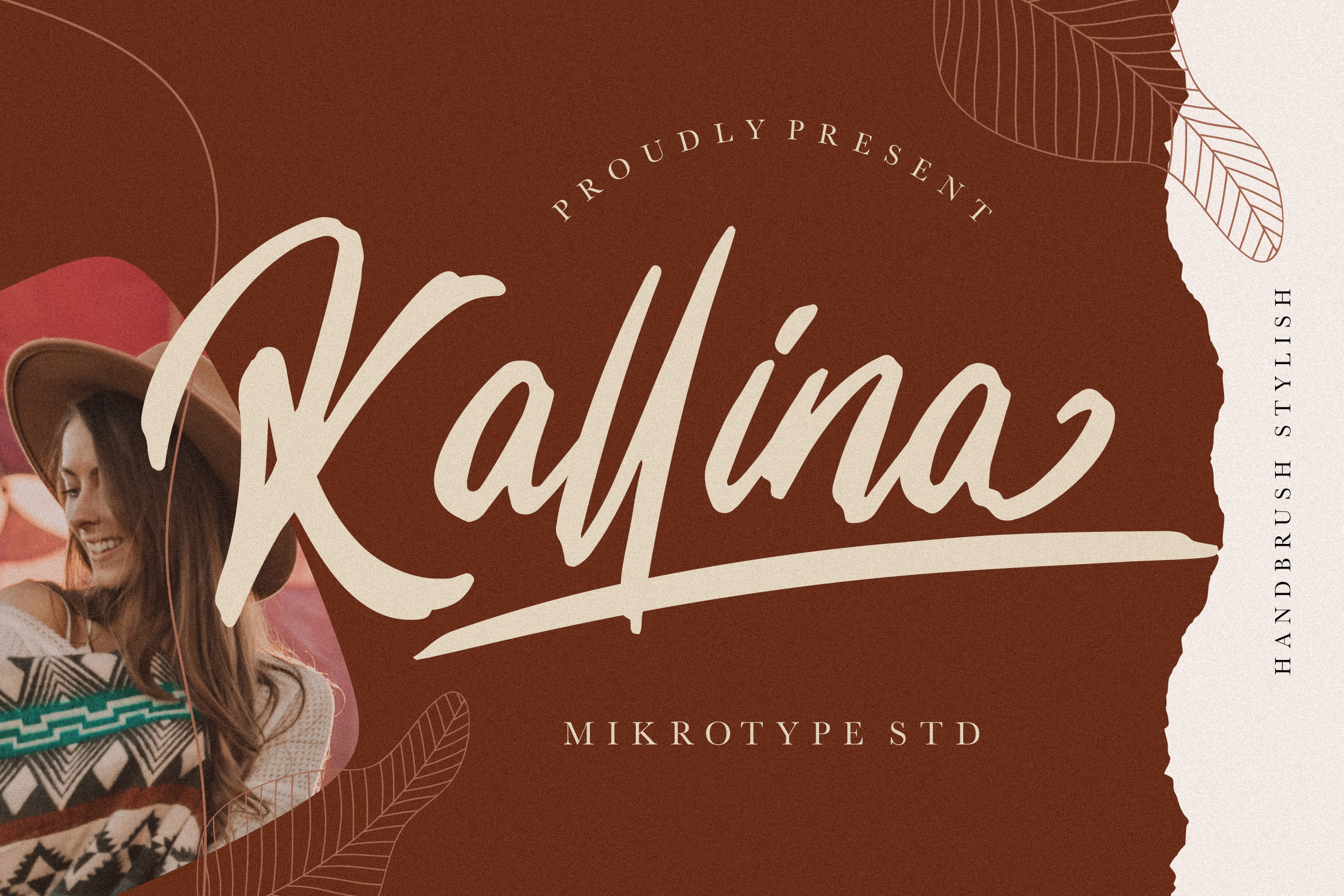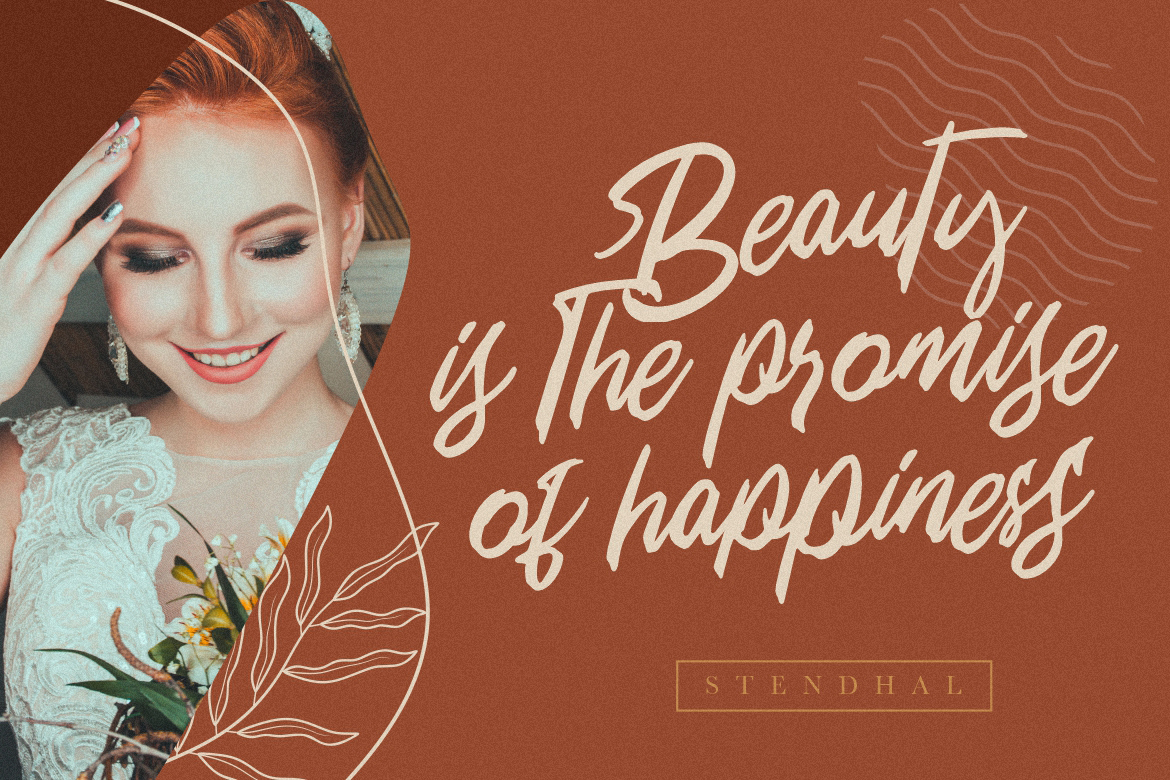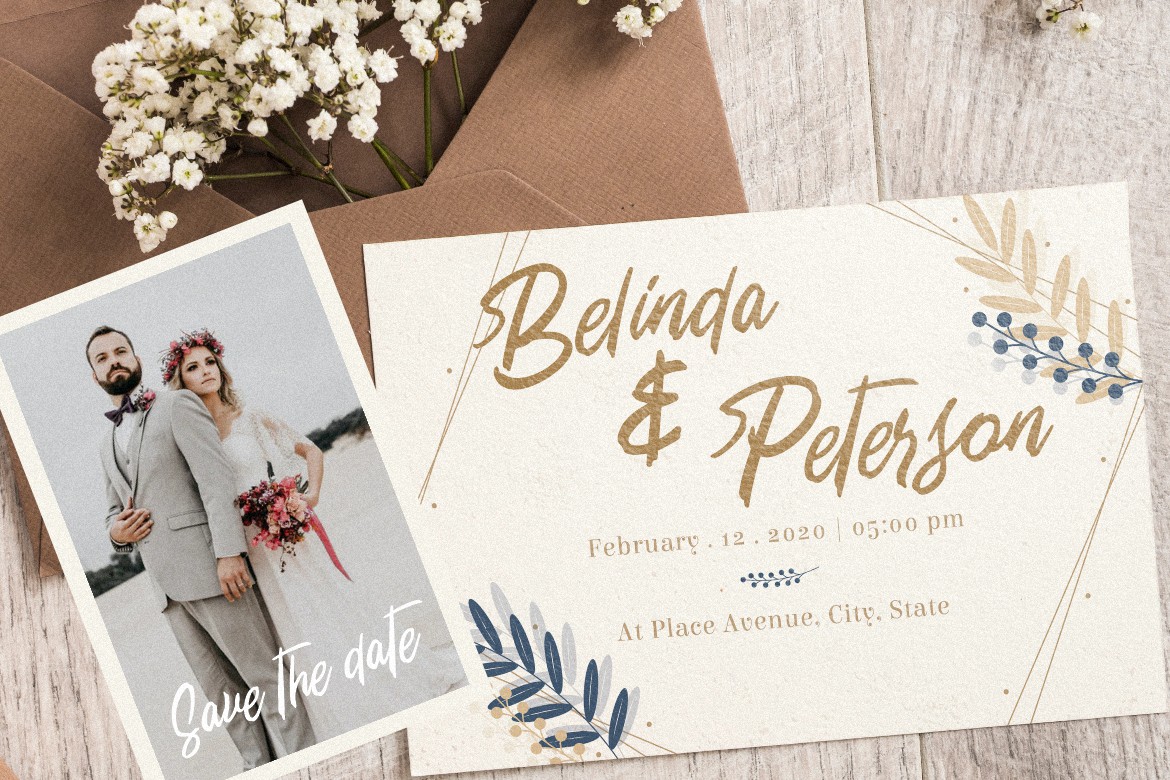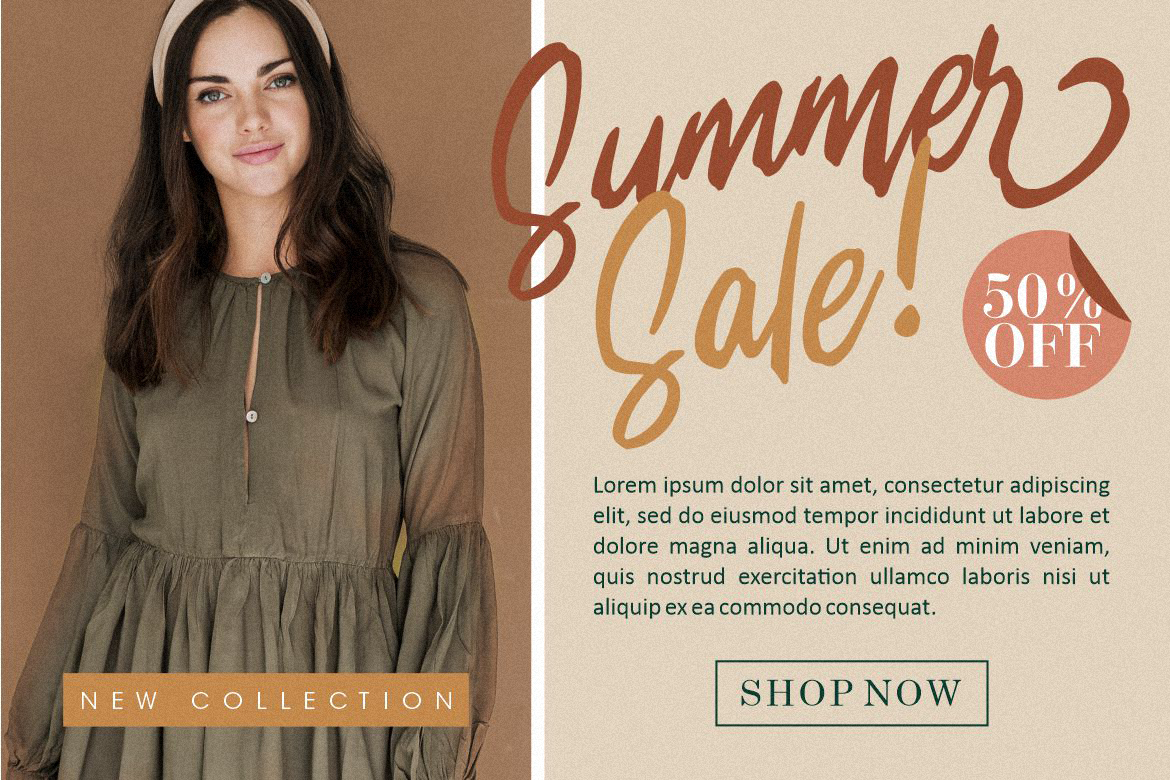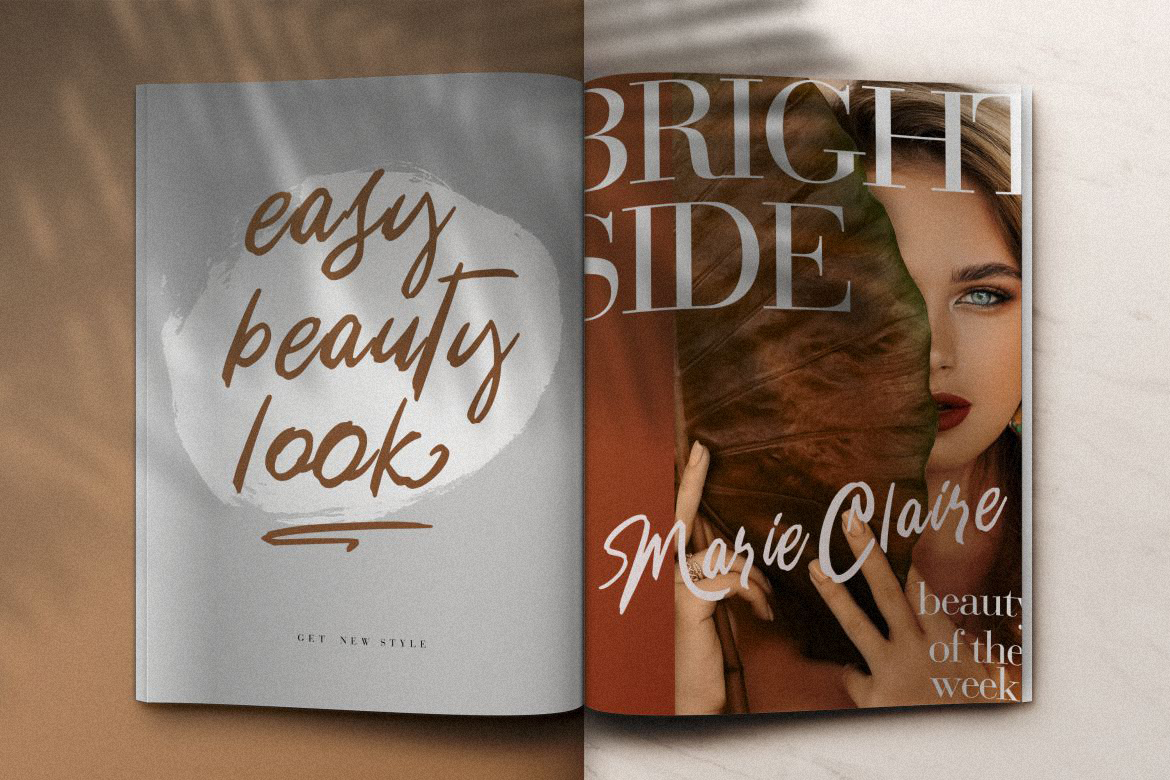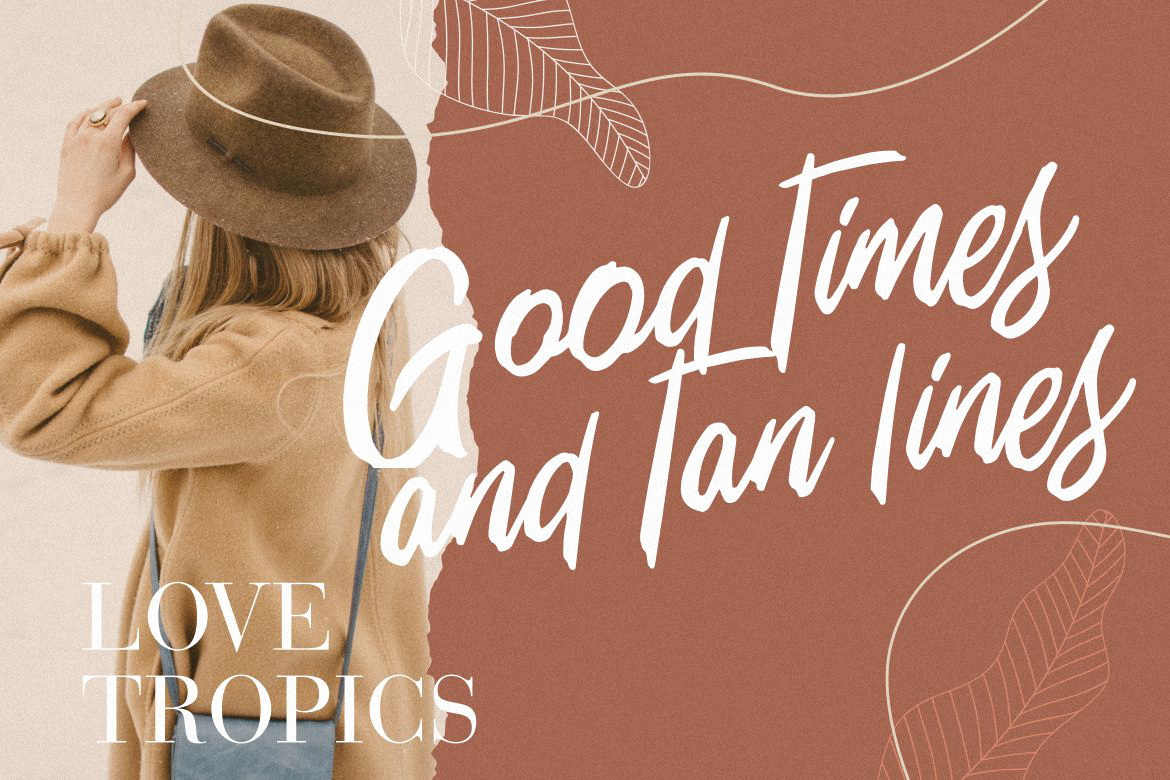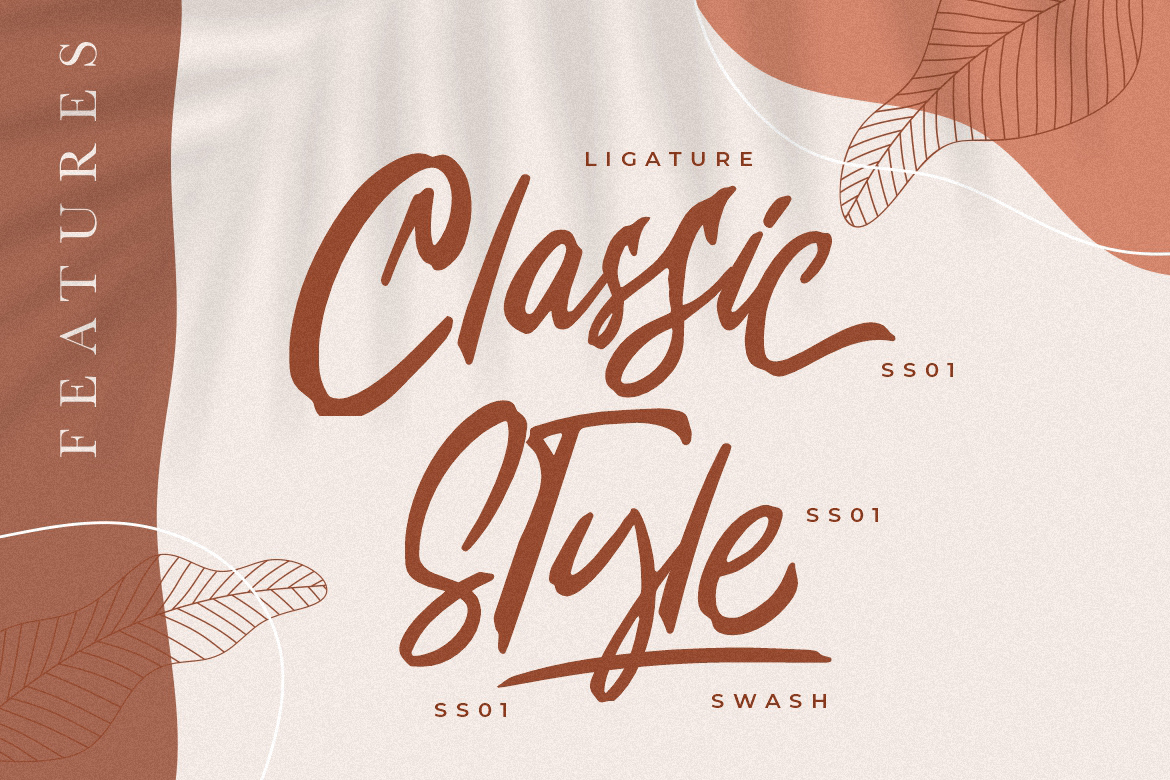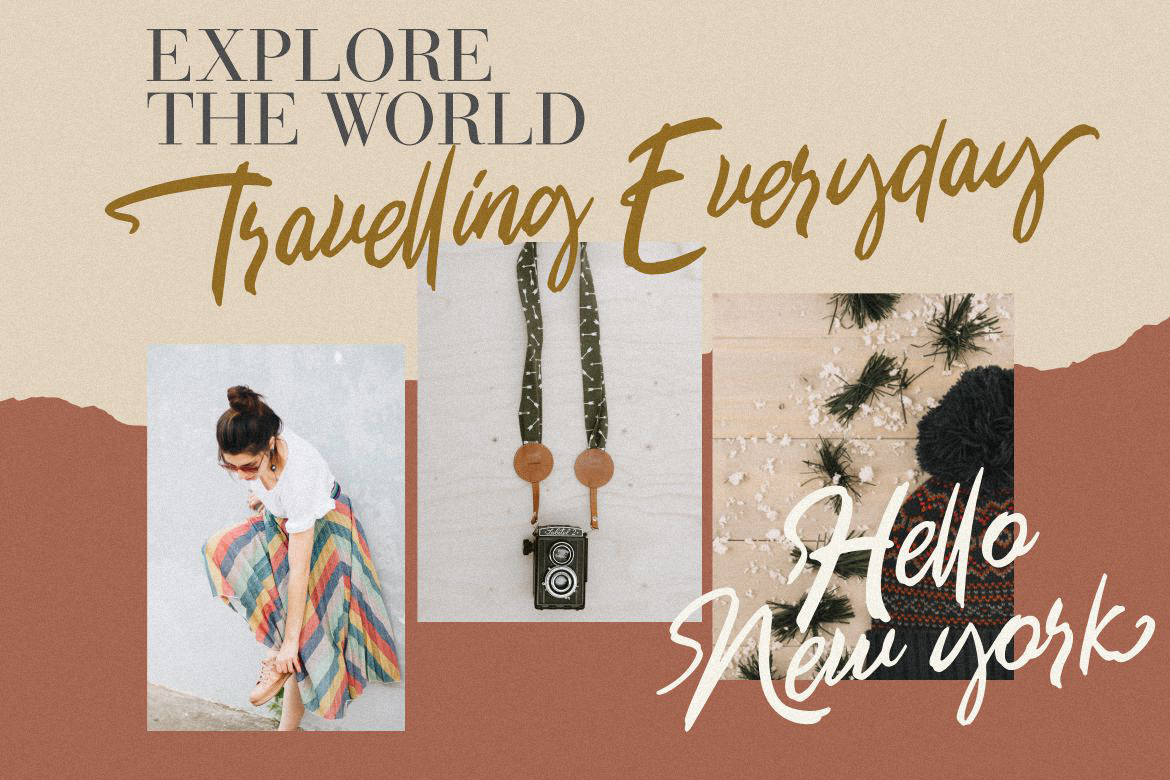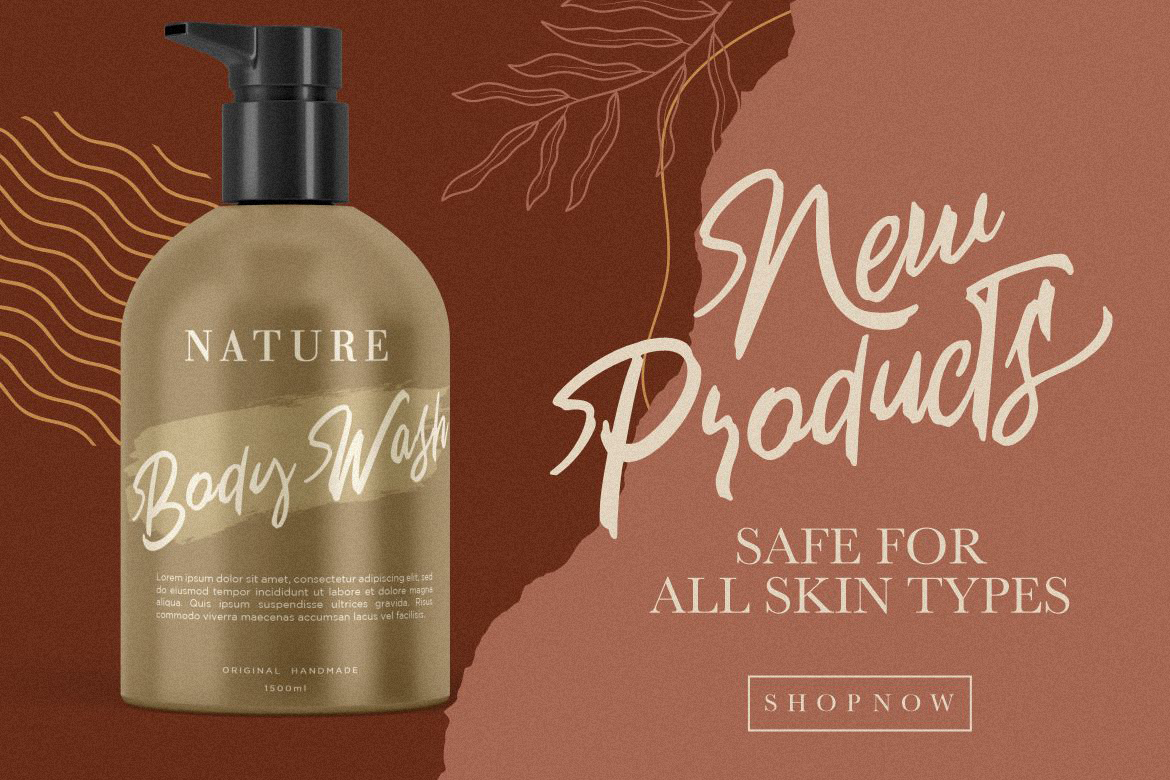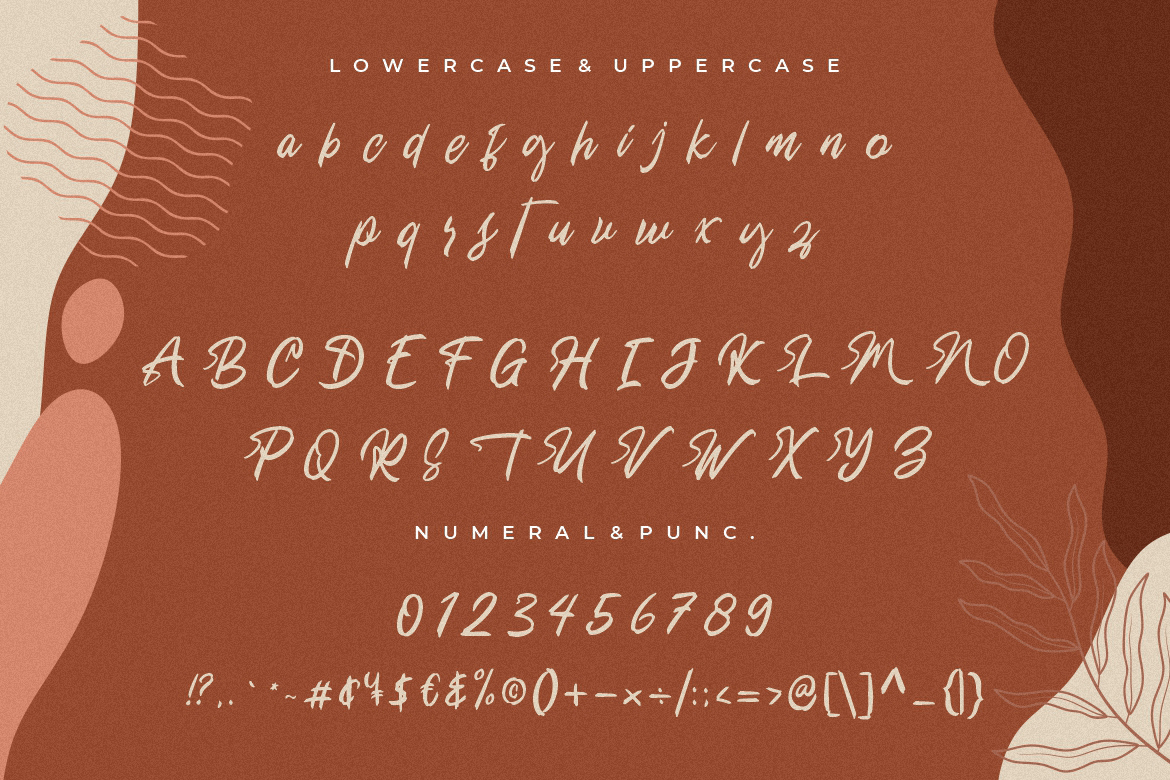
Introducing Kallina Handbrush Stylish – A handbrush stylish script typeface. This font will looks awesome and amazing in many way to your latest project. The font is perfect for for movie title, logo, blogging, brand identity, book title, social media, branding, wedding invites, cards or simply use it in your next design project and suitable to use for many occasion.